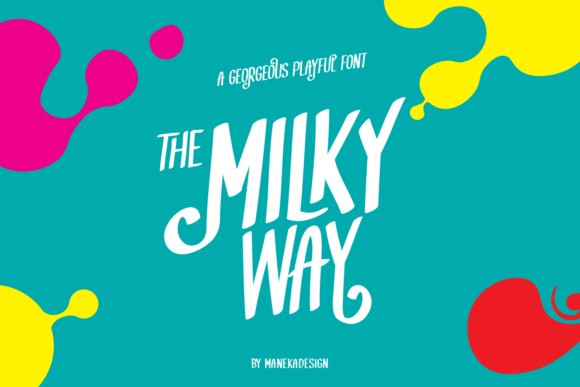
Milkyway Font
MilkyWay Display Font is a bouncy and quirky display font. It will add a fresh and contemporary touch to your designs. Add this unique display font to each of your creative ideas and notice how it makes them stand out!